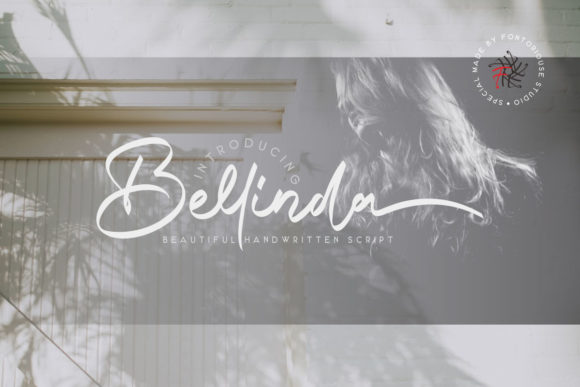
Introducing Bellinda Script, a remarkable creation by Fontoriouse Studio, destined to transform your design aspirations into captivating realities. This extraordinary font, with its graceful lines, exudes an air of elegance and refinement, infusing your projects with a timeless charm.
Embark on a typographic journey where words dance in harmony, gracefully flowing from one letter to the next. Bellinda's curves are meticulously crafted to evoke a sense of sophistication and allure, making it the perfect choice for logos, branding, invitations, and any project yearning for a touch of timeless beauty.
Unleash your creativity and let Bellinda's versatility guide you through a world of design possibilities. Whether you seek to create enchanting wedding invitations, elegant business cards, or heartfelt greeting cards, this font will effortlessly elevate your designs to new heights of artistry.
Dive into a world of boundless imagination, where words become art and emotions find expression through Bellinda's alluring strokes. Let your designs radiate warmth and charm as this font weaves its magic, leaving an everlasting impression on your audience.